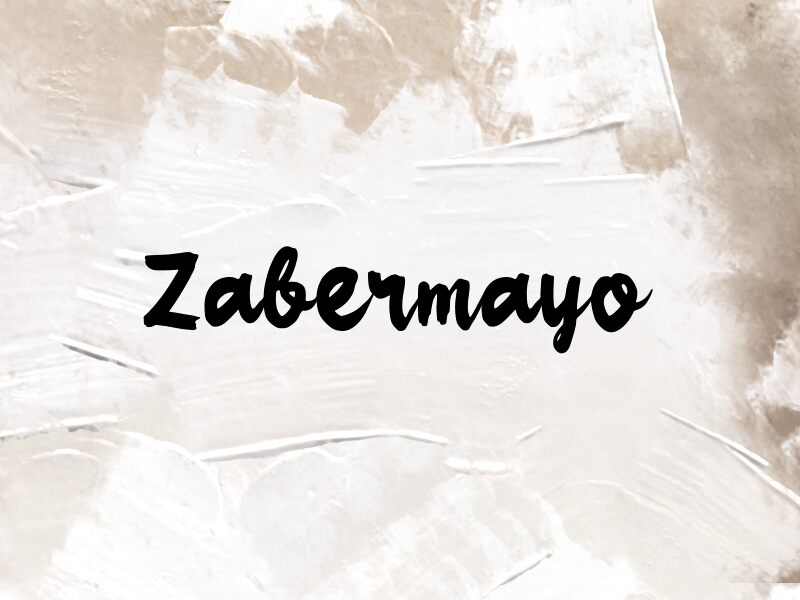
Zabermayo font by wepfont.com is a free brush font that captures the artistic flair of modern handwriting. With its dynamic flow and expressive style, this typeface offers a casual elegance perfect for adding a friendly, approachable impression to your design projects. Zabermayo's brush characteristics give it a natural feel, making it an adaptable resource for creative industries seeking an authentic touch.
Suitable for personal branding, this font can make its mark on business cards, logos, and social media graphics. It can also add charm to invitations, greeting cards, posters, packaging designs, or even website headlines. Whether you're working on a blog, a digital project, or a presentation, Zabermayo lends an engaging, personal edge to your visual communication.
Zabermayo is a unique free font that stands out with its artistic design and versatility. Perfect for projects ranging from digital graphics to printed materials, this font brings a fresh touch to your creative endeavors. Whether you are developing a website, crafting promotional materials, or designing a logo, Zabermayo can enhance your work with its distinctive style.